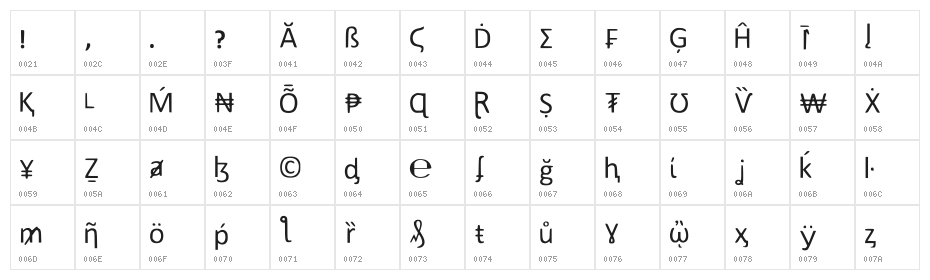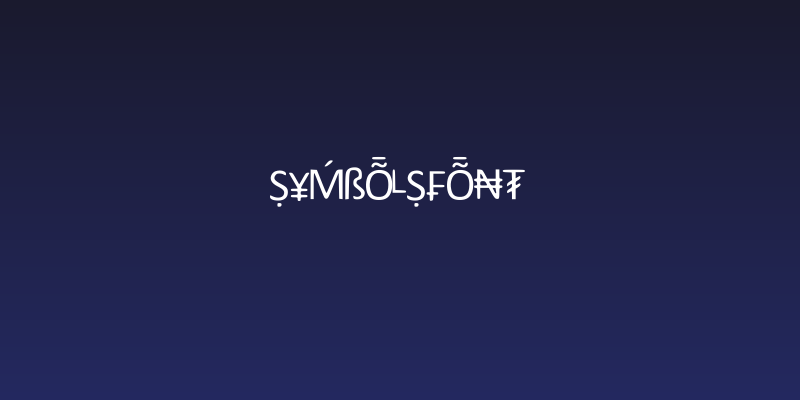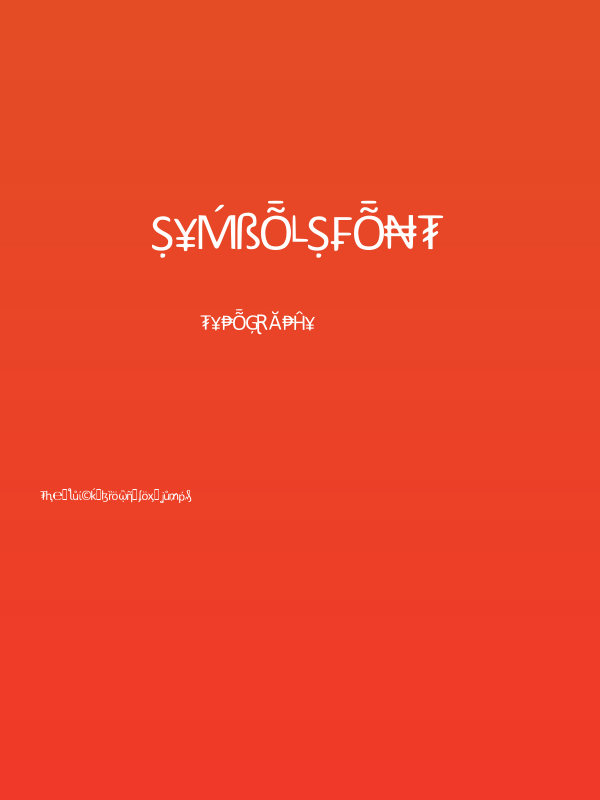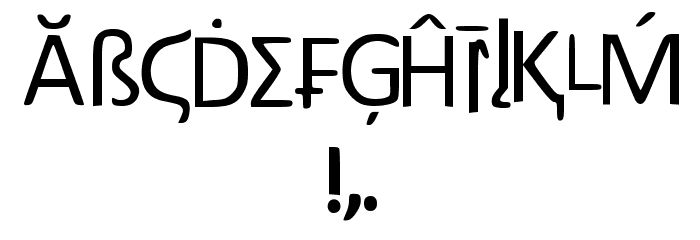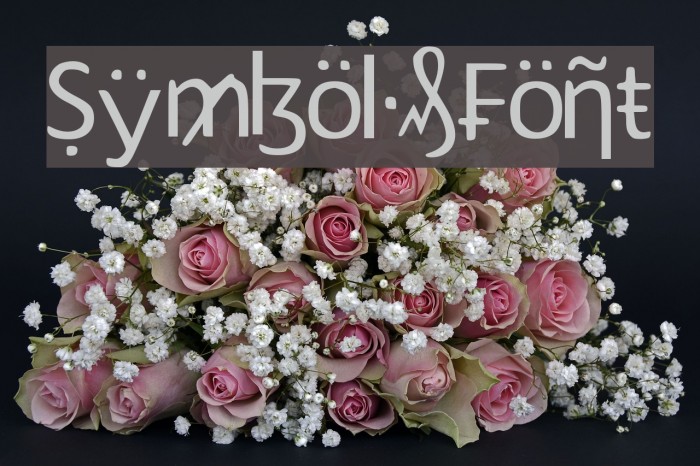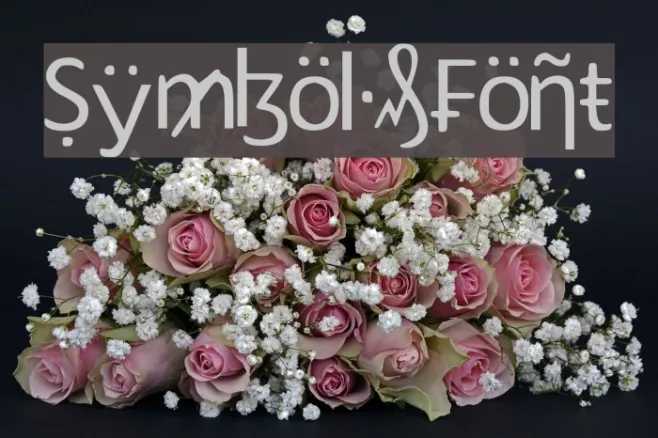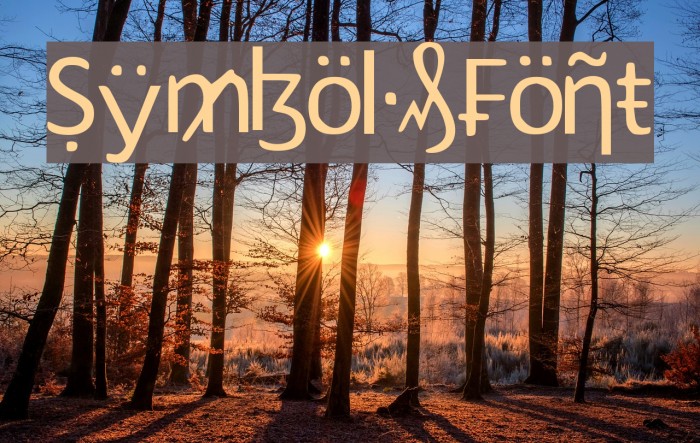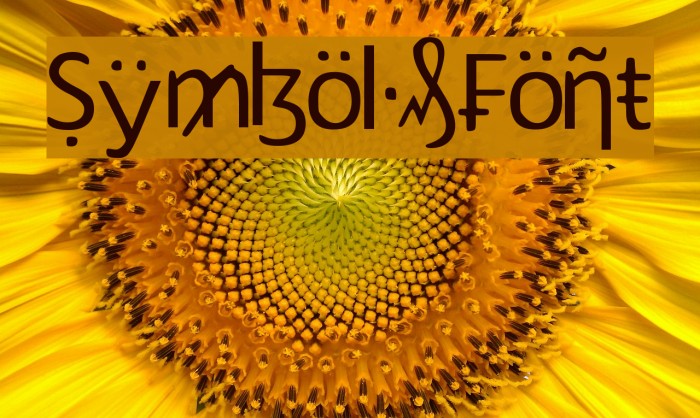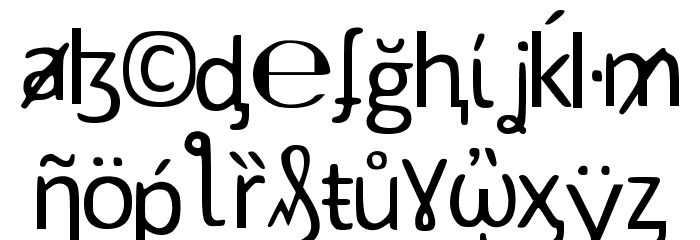
SymbolsFont Font
SymbolsFont Description
This font features a unique and artistic design, incorporating elements of both modern and traditional styles. The characters are bold and have a distinct geometric structure, with sharp angles and clean lines. The uppercase letters are particularly striking, with some incorporating additional strokes and accents that add to their decorative appeal. The lowercase letters maintain a consistent style, offering a harmonious balance with the uppercase set. The numerals and special characters follow the same design principles, ensuring a cohesive look across all elements. This font is ideal for projects that require a bold and eye-catching typeface, such as branding, posters, and creative designs.
| Proposed Projects | Ideal for branding, posters, creative designs, and any project needing a bold statement. |